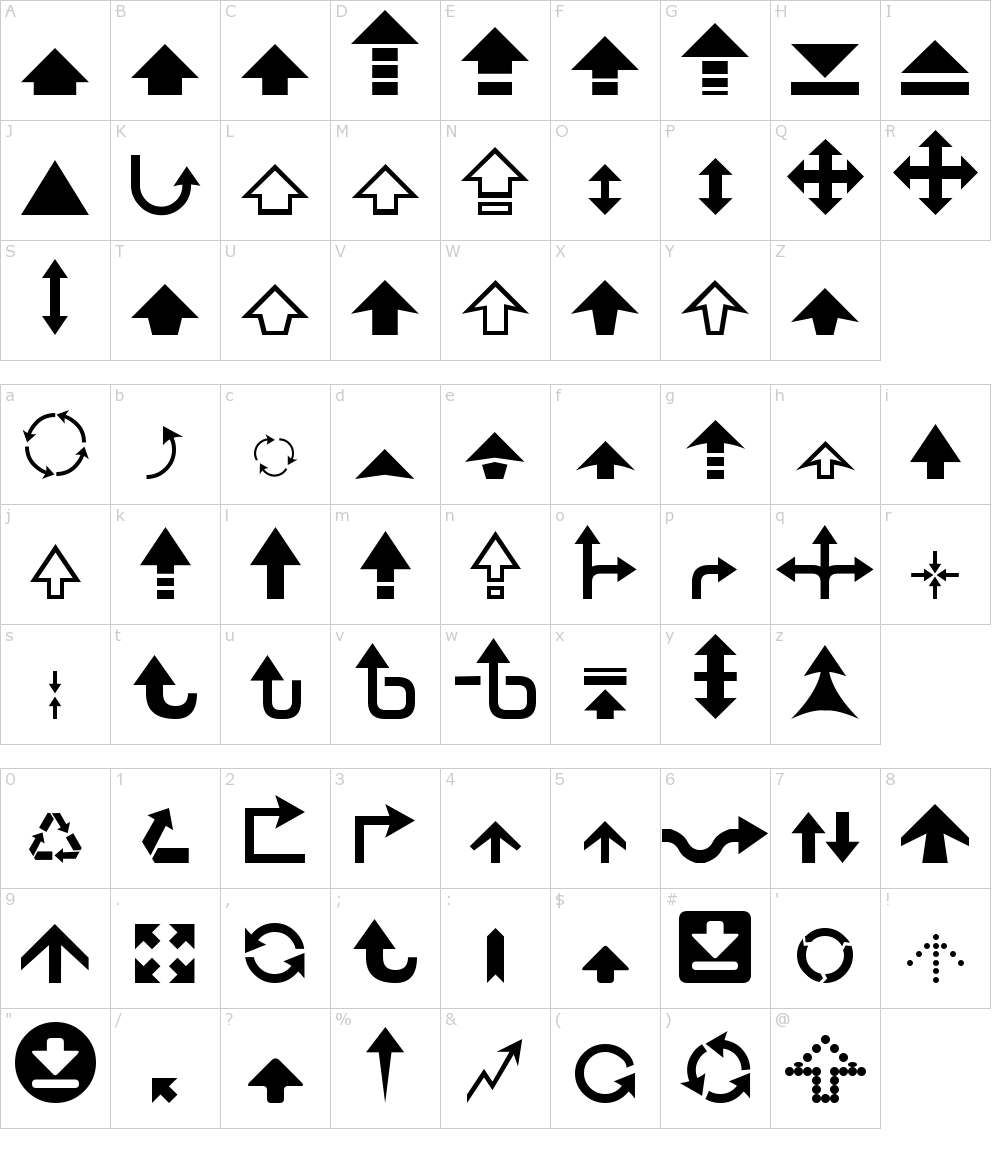
Arrows icons | font awesome arrows icons here, there and everywhere, font awesome arrow icons really get to the point of wayfinding so your users can get to where they need to go. Click to show the lettertype. You get different types of glyphs, alternatives, and.
Structurally, The Arrow Consists Of A Triangle.
The most common arrow signs are left. Like all other jlh fonts, this font is in. Arrow type is dedicated to creating fonts that are useful, beautiful, tell a story, and push technical boundaries.
I Created This Font Using Fontlab Studio 5 Only.
To learn more about the font and typography of the arrow bold font, simply enter the text in the field below and click generate. Add to favorites +189 arrow font specimen arrows dingbats font. Click to show the lettertype.